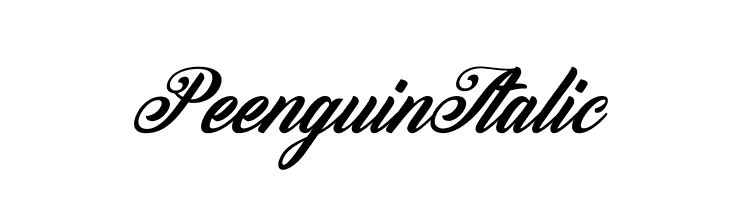
A bold, geometric font with a futuristic and industrial style.
A bold, distressed font with a gritty, urban style.
A playful, handwritten font with tall, narrow letters and a whimsical style.
A bold, edgy font with a hand-drawn, graffiti-like style.
A playful handwritten font with rounded, irregular letterforms.
A playful and elegant script font with flowing, cursive letters.
An elegant, flowing script font with a hand-drawn quality.
An elegant script font with flowing, cursive letterforms and intricate flourishes.
Condensed, dotted display font with a digital, electronic feel.
A bold, playful, and slightly condensed font with a dynamic slant.
A bold, playful font with uniform strokes and whimsical elements.
A whimsical font with letters formed by cat silhouettes, offering a playful and decorative style.
A playful handwritten font with flowing, irregular letterforms and a modern aesthetic.
A bold, decorative font with a playful bubble texture, ideal for creative projects.
A playful, hand-drawn font with dynamic and irregular letterforms.
A playful, handwritten font with an informal and friendly style.
A whimsical font with characters integrated into computer-themed designs.
A bold, decorative font with a three-dimensional effect and vintage appeal.
An elegant, flowing script font with graceful curves and a sophisticated slant.
A bold, expressive script font with dynamic flow and calligraphic elegance.
A bold, dynamic script font with a handwritten appearance.
An elegant and flowing script font with artistic flair.
An elegant, italicized script font with flowing, cursive letterforms.
A bold, dripping font with a playful and eerie style.